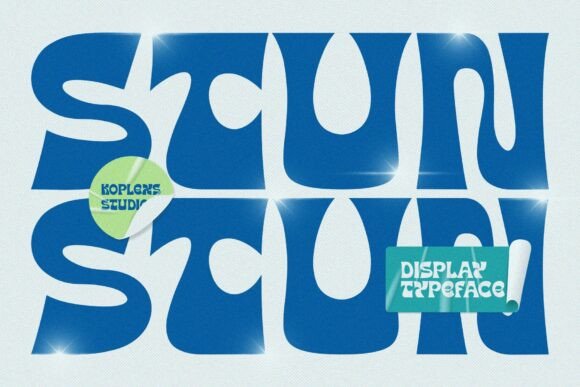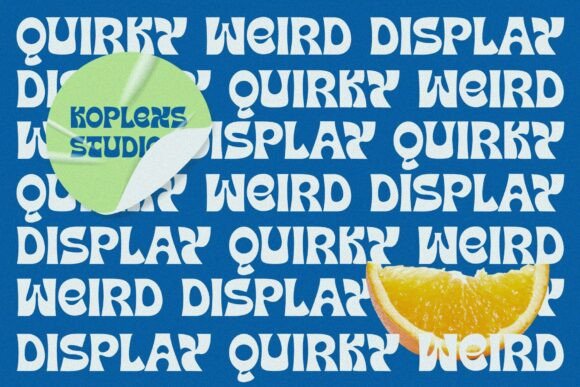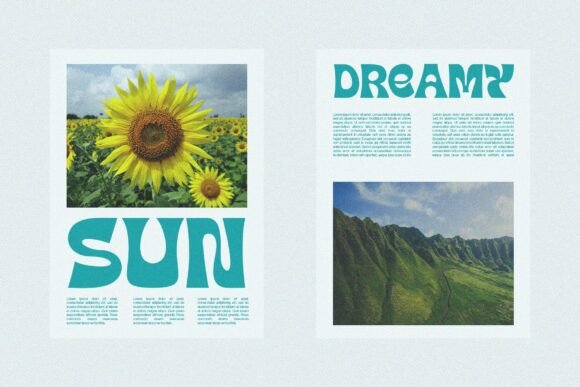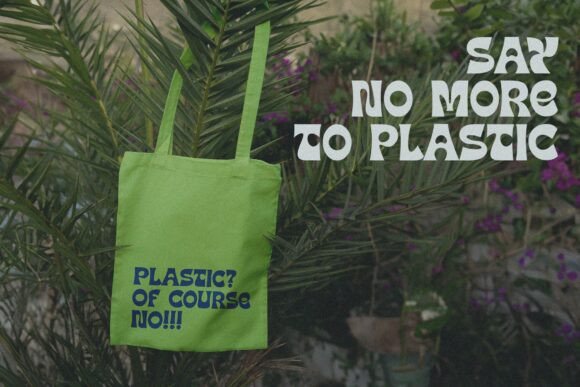
Stun Font: A Quirky Display Typeface for Retro & Modern Designs
About the Stun Font
Explore the possibilities with Stun Font, a font that offers both beauty and functionality. Make a bold statement with Stun – Display Typeface Font, a vibrant and eye-catching typeface designed to elevate your creative projects. Inspired by retro aesthetics but crafted with a modern twist, Stun is the perfect choice for designers who want their work to stand out.
This typeface is versatile and ideal for projects such as branding, posters, social media graphics, event invitations, and packaging design. Its bold curves, clean edges, and dynamic letterforms bring life and personality to any text, ensuring your message is both stylish and impactful.
Stun Font Example